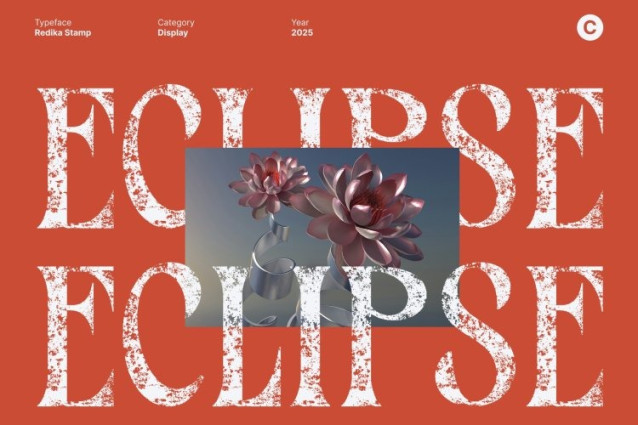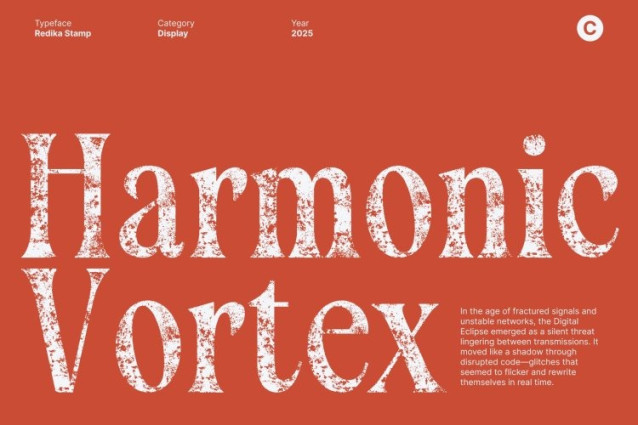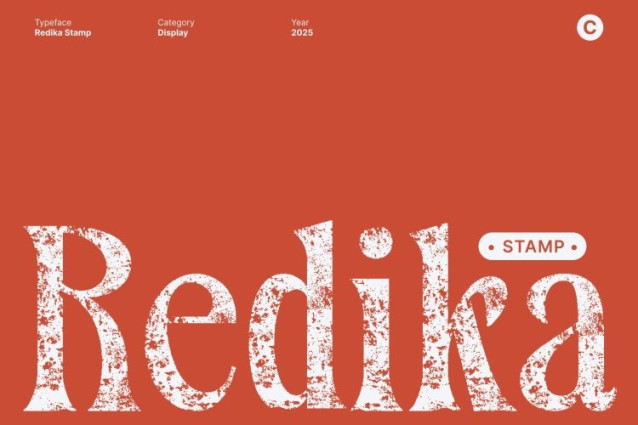
Redika Stamp Font
Redika Stamp Font This brings the charm of classic typography into the modern world with its nostalgic retro shapes and lively personality. Inspired by vintage lettering traditions, this font captures the beauty of smooth curves, expressive forms, and rhythmic flow.
Stamped Texture for Artistic, Expressive Character
The defining feature of this font is its unique stamped texture, adding an authentic, handcrafted touch to its retro structure. This textured look introduces depth, irregularity, and organic charm turning simple characters into expressive visual elements.
Perfect for Retro Branding and Visual Identity
This font excels in design projects that lean on nostalgic aesthetics and strong emotional appeal. Its friendly curves and textured finish make it ideal for branding that aims to communicate creativity, warmth, and sincerity. From packaging and logos to poster headlines and social media visuals, this font delivers a visually compelling presence that instantly captures attention and sets the tone for a retro-inspired identity.
Versatile for Posters, Campaigns, and Creative Displays
Despite its retro essence, this font is highly versatile across various display uses. Its expressive shapes perform beautifully in bold layouts, artistic campaigns, editorial compositions, and themed visual storytelling.